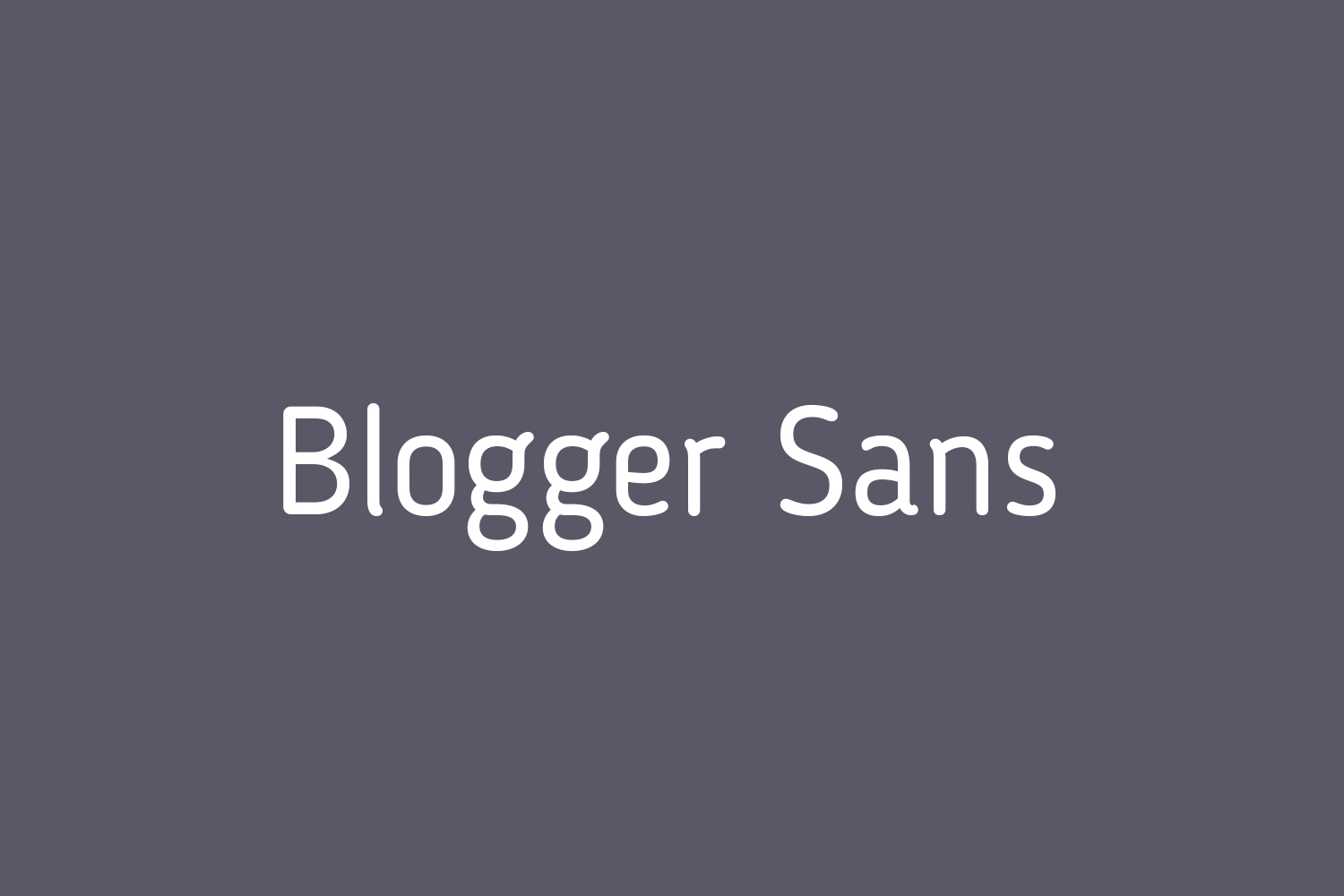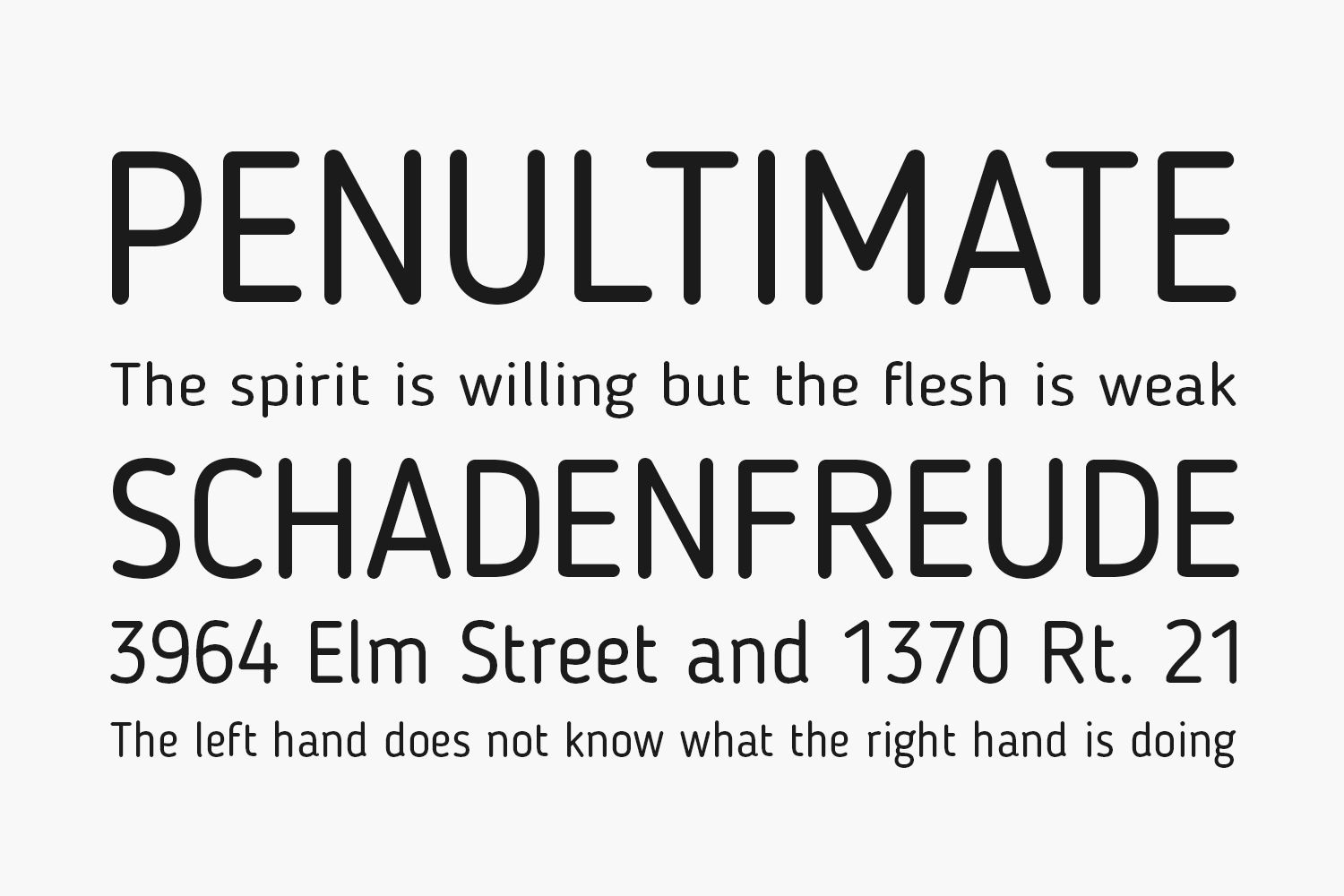
Blogger Sans Free Font Family was designed by Sergiy Tkachenko as the FirstSiteGuide’s custom typeface, created primarily for the use in headlines of the website. Blogger Sans draws inspiration from the clarity and legibility of the popular font Dosis with an additional support of the lost Cyrillic languages. The bolder weights are lighter and softer. The following elements (-b-d-h-k-p-q-y-) are shorter, thus the headlines and subheads could be put in the dense line spacing. In addition the outline of the Blogger Sans is more smooth with better eligibility.